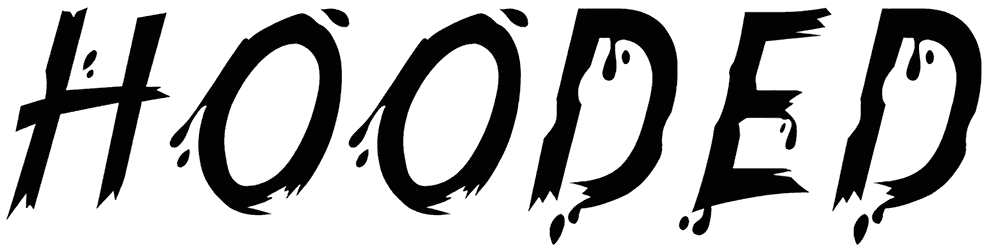
Hooded Font
Hooded simulates the oozing of blood drops on its capital letters and numbers, which gives it a terrifying nature. By using this horror font that does not include lowercase letters, you can bring a real horror scenario to life.
As a graphic designer, whenever you need a little horror in your writing, you can pull this Halloween font out of your bag and use it for a Halloween party, crime book, or horror movie.